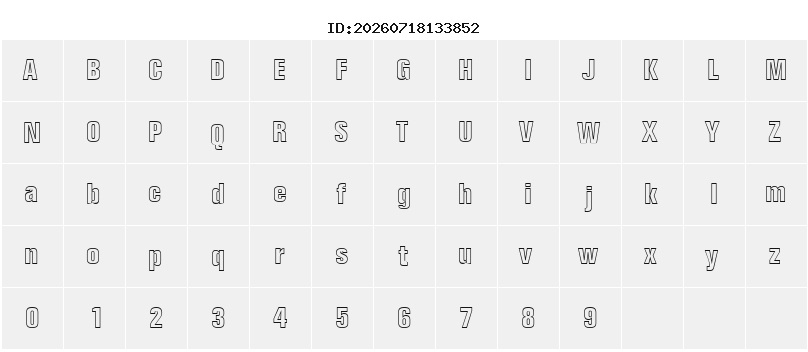
• Font Name: CaravelleCondensed
About CaravelleCondensed.ttf
CaravelleCondensed.ttf is a modern, elegant sans-serif font designed for ultimate readability and visual harmony. Perfect for branding, headlines, web design, and print materials.